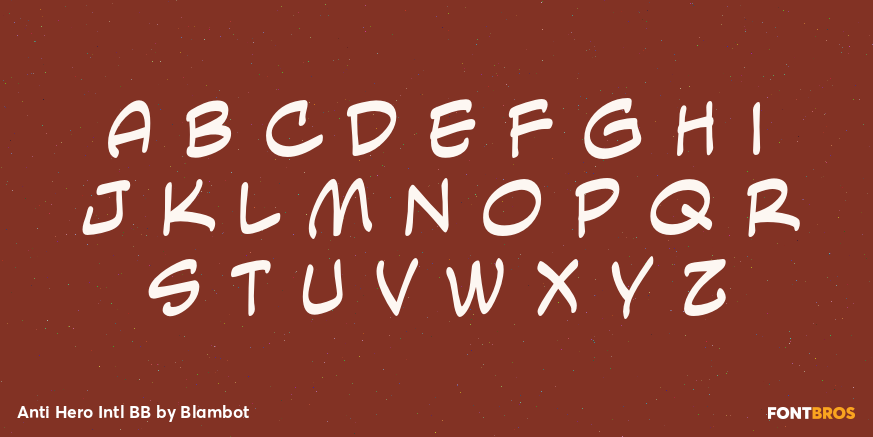
Anti Hero Intl BB
Font Family by Blambot
Anti Hero Intl BB is a retro handwritten display family with an easy, expressive feel that nods to mid-century lettering. Its casual stroke and slightly slanted rhythm give headlines and short phrases a lively, human touch, making it a strong fit for work that wants vintage personality without feeling stiff.
With 3 styles included—Regular, Italic, and Bold—this family gives you a compact set for building contrast while keeping the same hand-drawn voice. It works especially well for posters, branding, packaging, social graphics, and other display uses where a 1940s to 1960s-inspired look can help set the tone.
Created by Blambot, this is a useful choice for designers looking for handwritten retro character with enough range to move from playful to punchy.